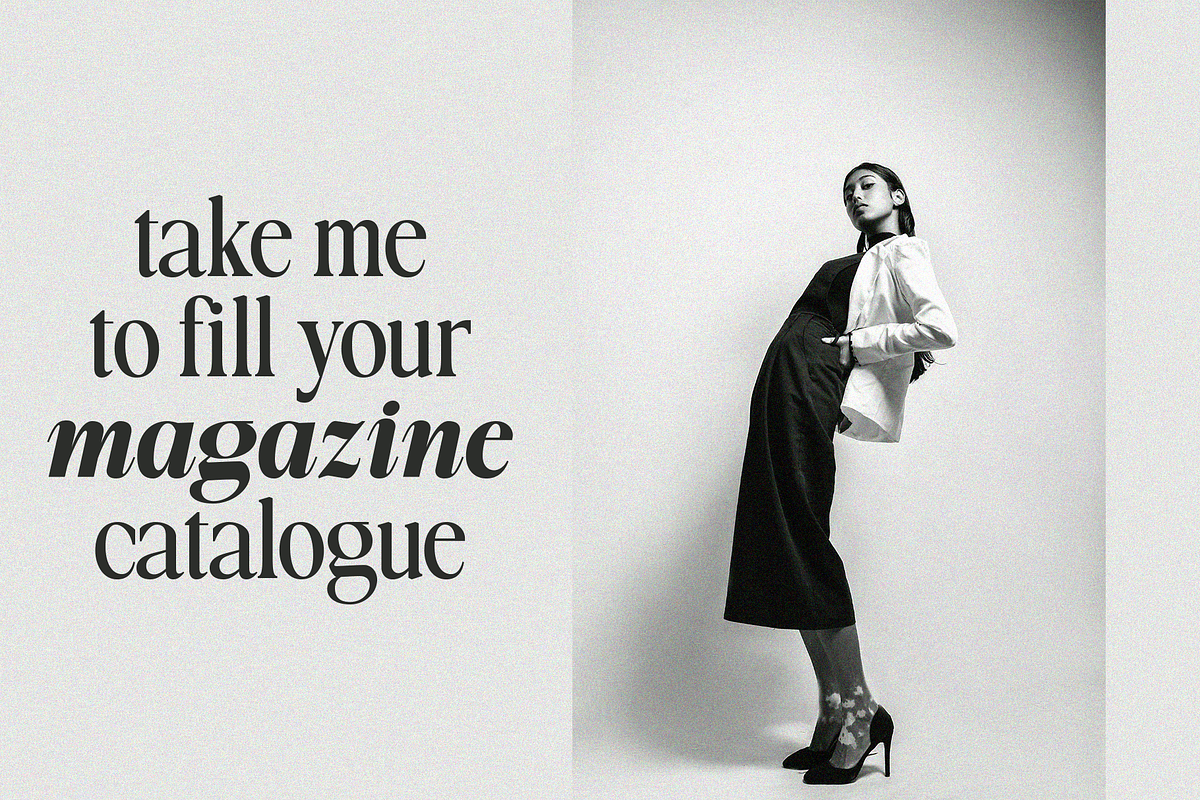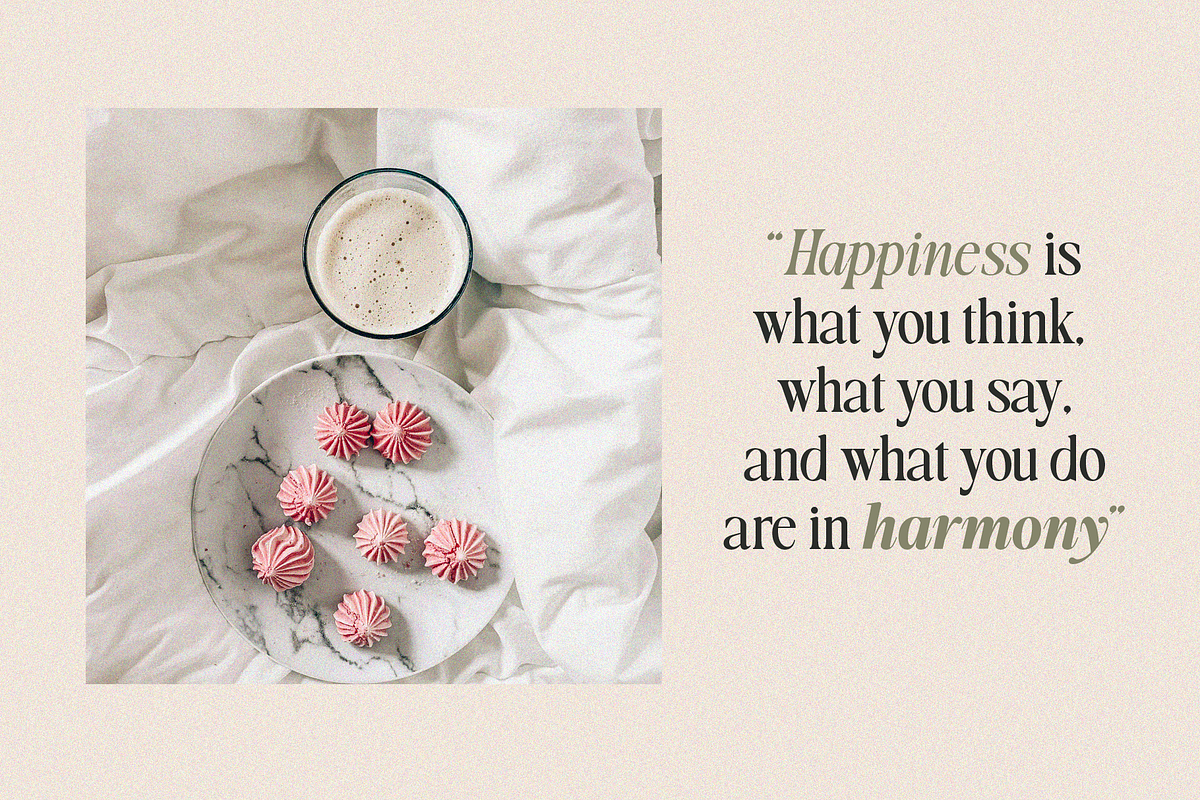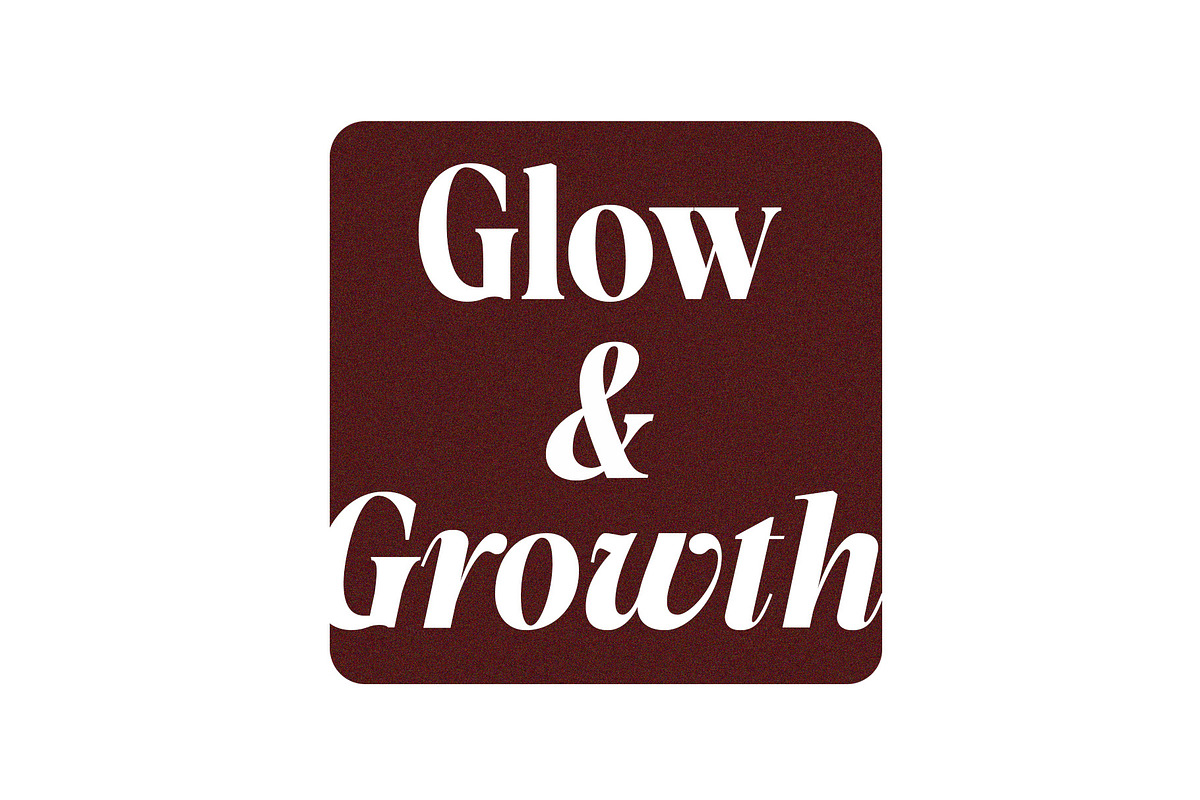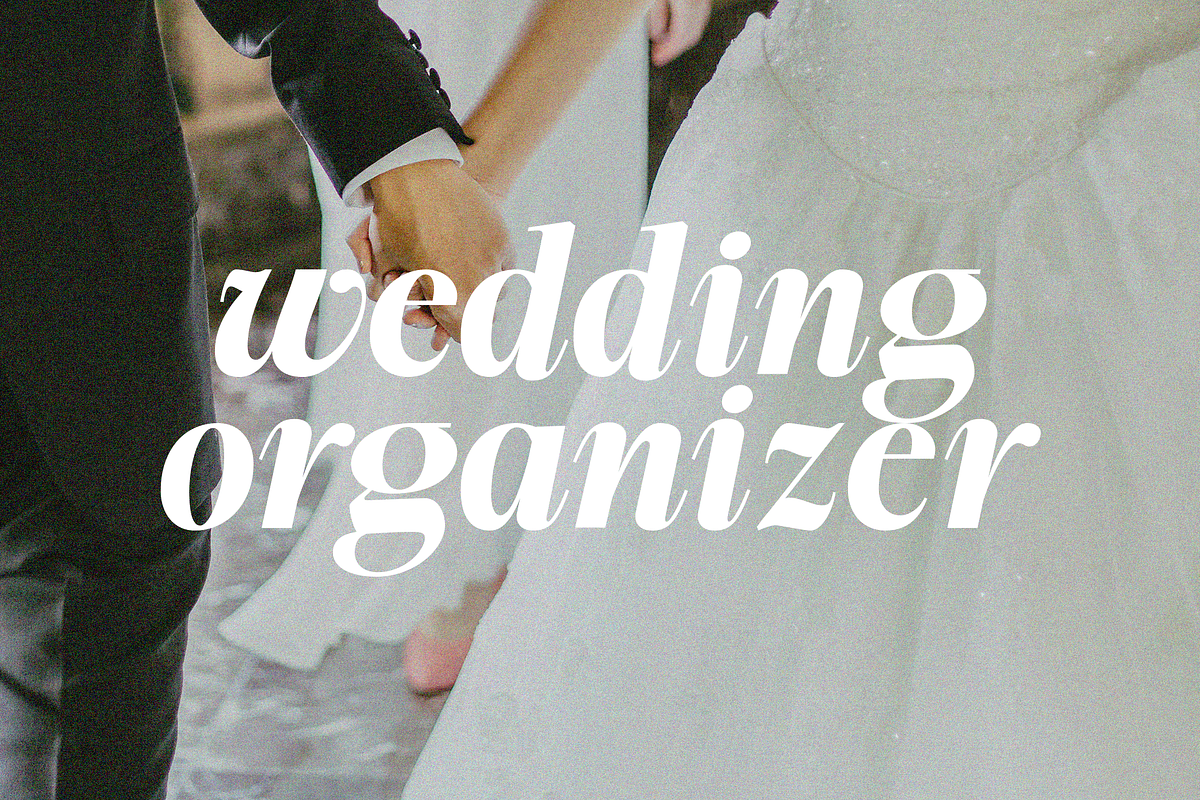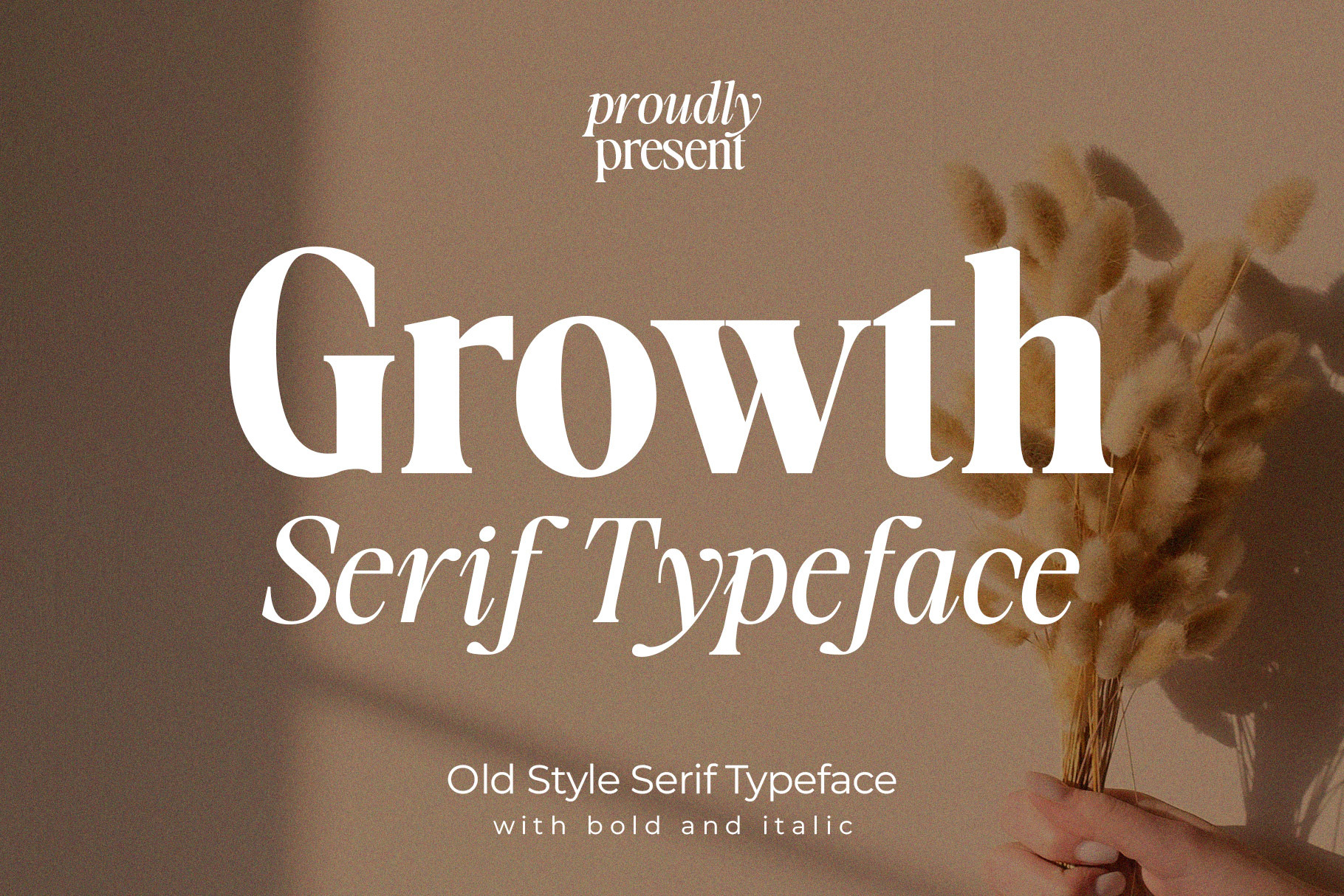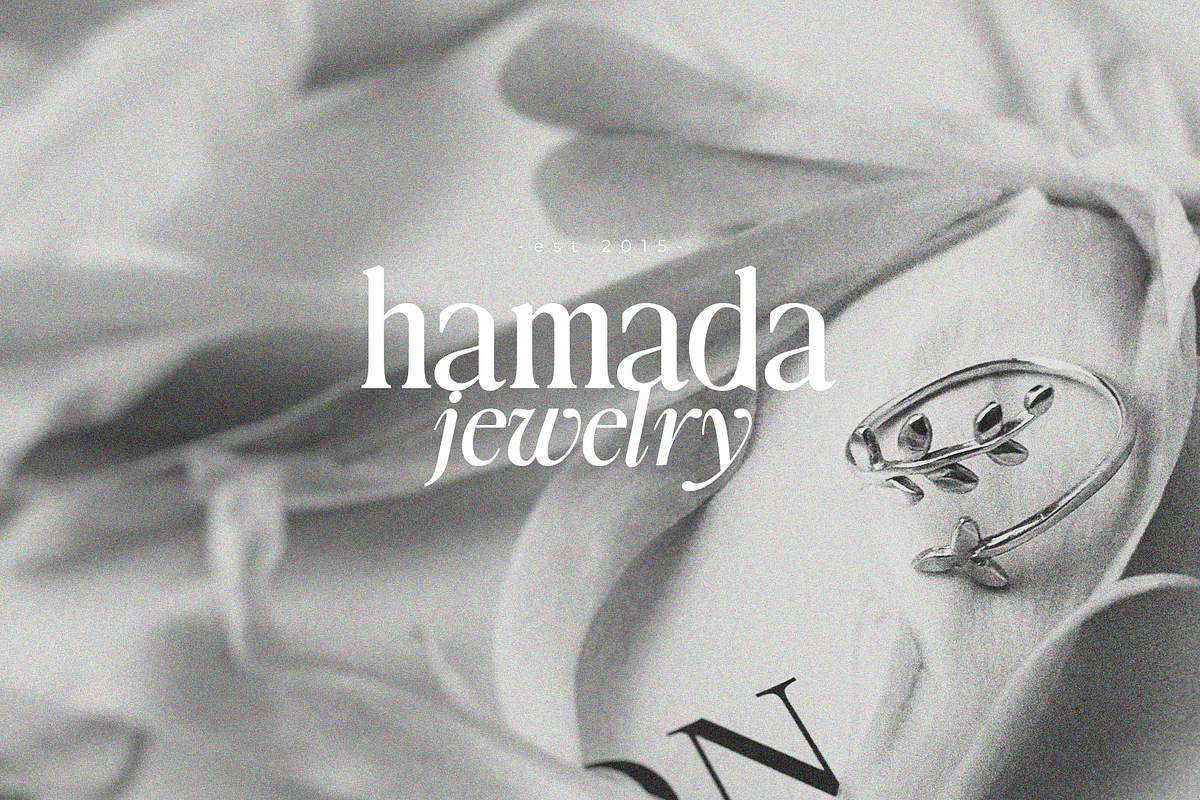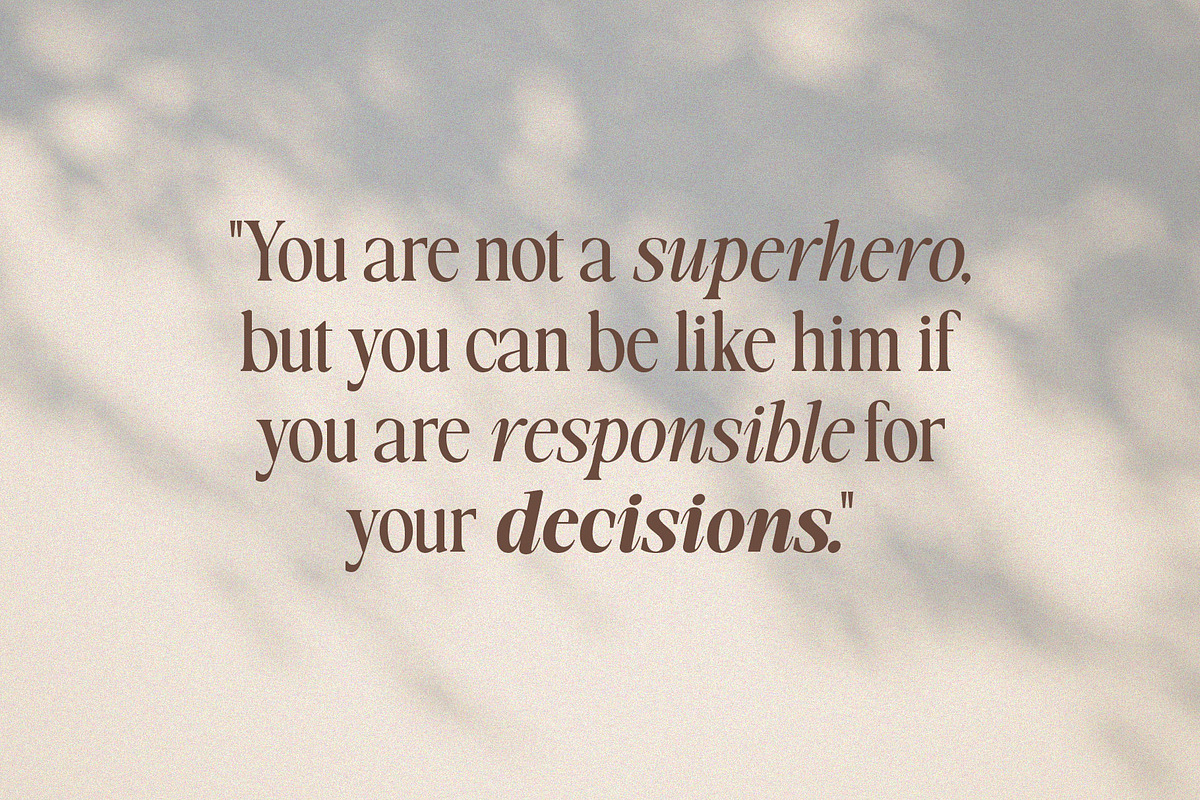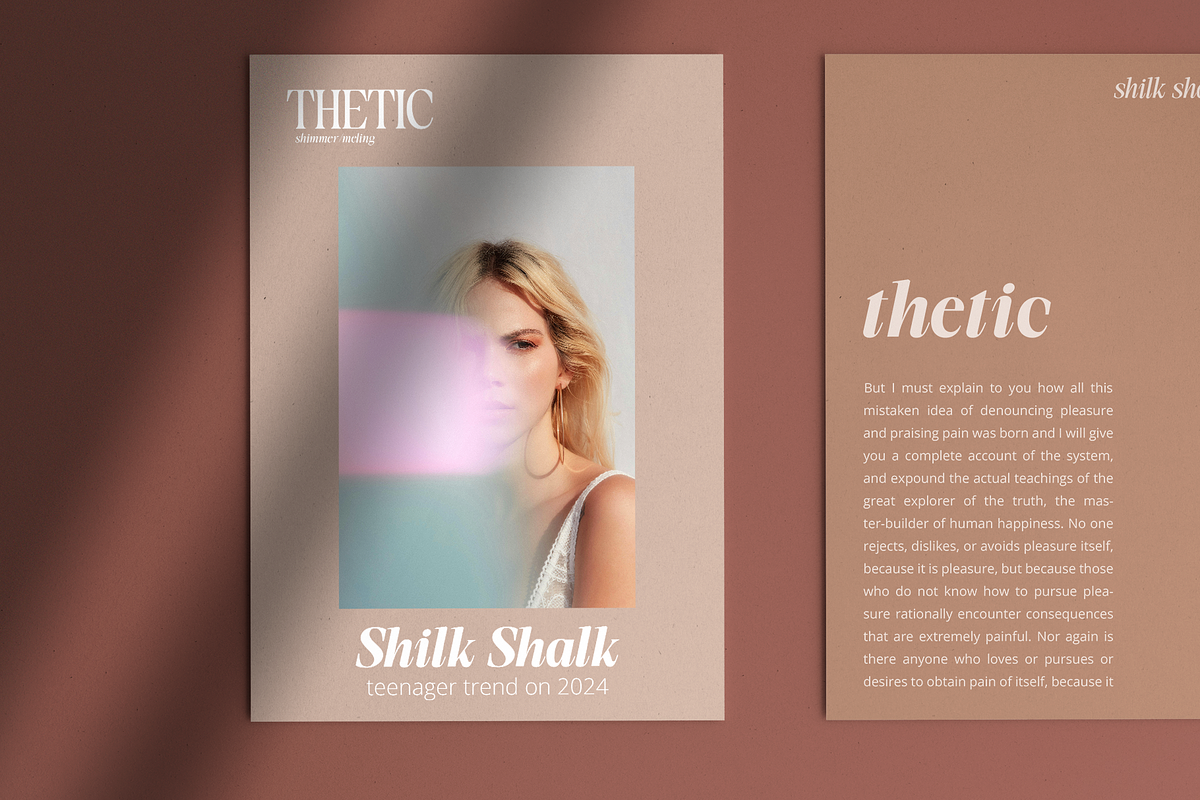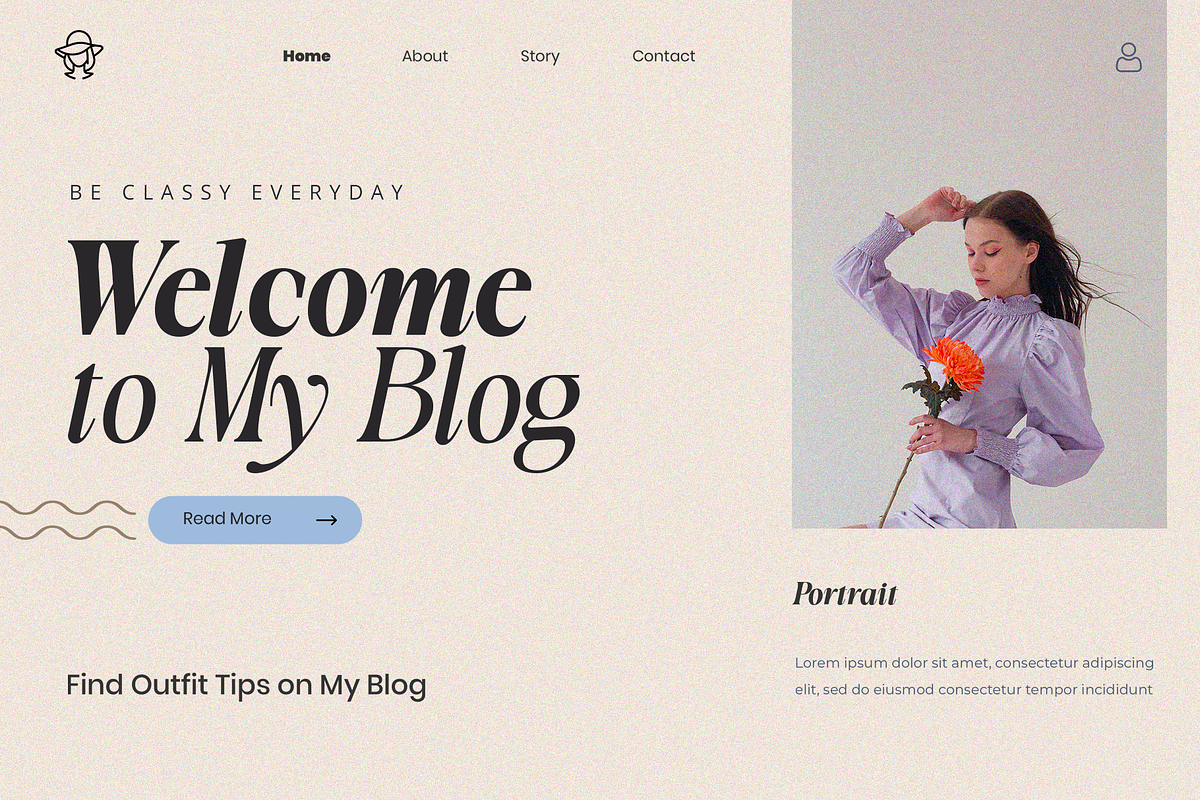
Growth Serif Typeface
Growth Serif is a classic serif typeface that embodies timeless elegance and minimalist sophistication. Its refined serifs and clean lines create a balanced and polished look. The font comes in both italic and bold variations, offering versatility while maintaining its graceful character. The italic style adds a subtle sense of movement and fluidity, while the bold weight provides a commanding presence. Growth Serif is perfect for designs that demand a blend of traditional refinement and modern simplicity, making it an excellent choice for both print and digital applications.